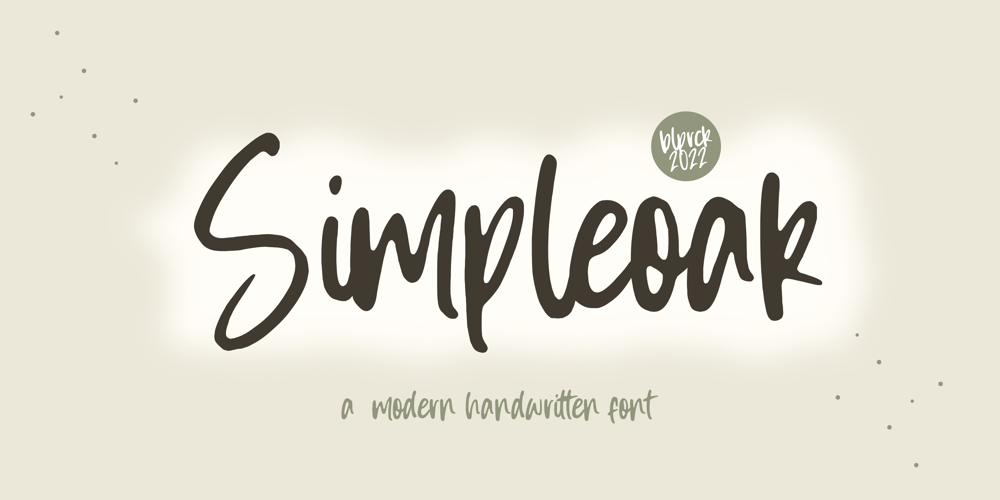
Simpleoak Font Family was designed by Restu Angga and published by Balpirick. Simpleoak contains 1 styles and family package options. Simpleoak is a Modern Handwritten Font.Simpleoak is a cute and vintage styled handwritten font. Whatever the topic, this font will be a wonderful asset to your font library, as it has the potential to enhance any creation.- also multilingual supportEnjoy the font, feel free to comment or feedback, send me PM or email.Thank you!